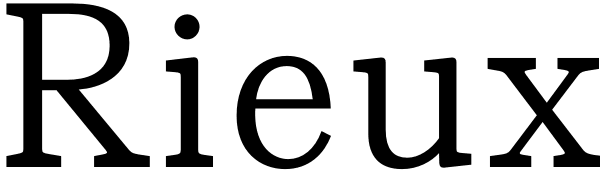
Rieux
Named after the steadfast doctor from Albert Camus’ The Plague, Rieux is an even-tempered slab-serif that is confident without being cocky and approachable without being casual. The aesthetic of Rieux is inspired by the industrial age. While the...